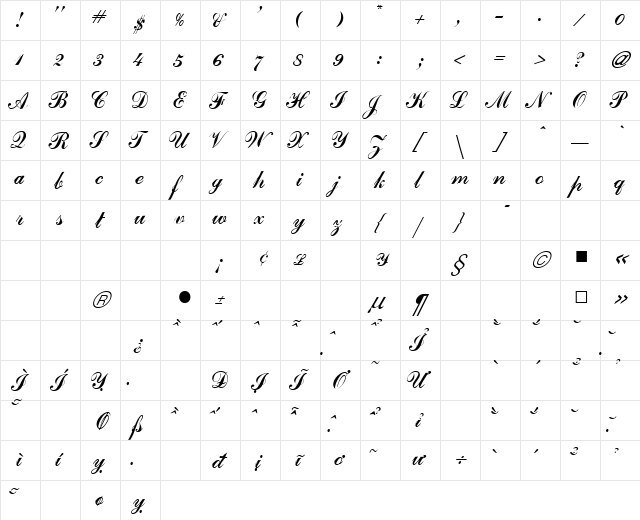
VNI-Commerce Bold-Italic
Design Context for VNI-Commerce Typeface
VNI-Commerce is a composed and adaptable typeface that performs quietly and consistently across a wide range of design contexts. Its italic angle brings a sense of urgency and motion to the letterforms. Its bold stroke weight gives it real presence on the page.
Pro Tip: Try VNI-Commerce for annotation and caption copy alongside an upright companion — the contrast in angle creates a dynamic but ordered typographic system.